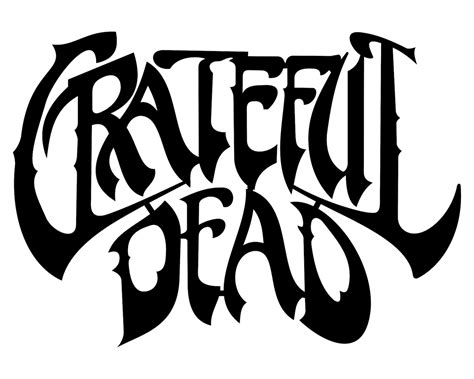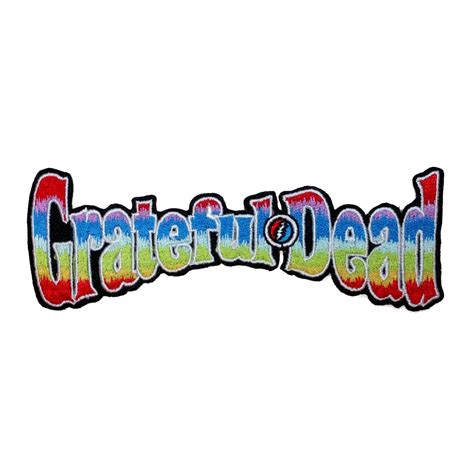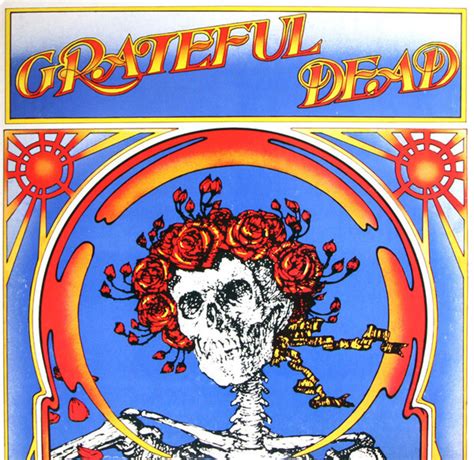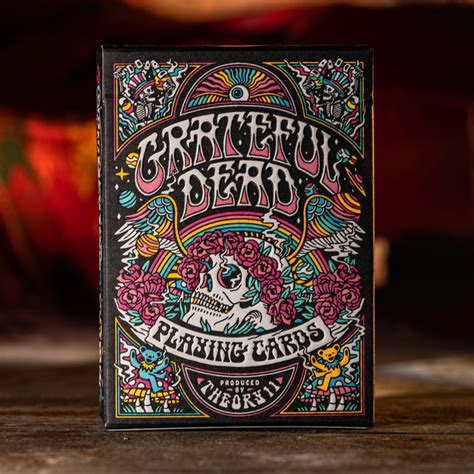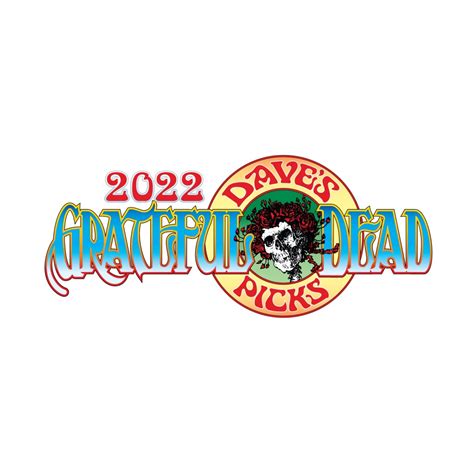
The Grateful Dead, an iconic American rock band, has left an indelible mark on music history. Their unique sound, eclectic influences, and devoted fan base have made them a cultural phenomenon. One of the lesser-known but equally fascinating aspects of the Grateful Dead's legacy is the Grateful Dead Font. This distinctive typography has become synonymous with the band's visual identity, capturing the spirit of their music and the counterculture movement they embodied.
The Origins of the Grateful Dead Font
The Grateful Dead Font, often referred to as the “Steal Your Face” font, originated from the band’s iconic logo designed by artist Stanley Mouse. The logo features a skull with a lightning bolt, which has become one of the most recognizable symbols in rock music. The font used in the logo is a custom design that reflects the band’s psychedelic and rebellious ethos. The Grateful Dead Font is characterized by its bold, angular lines and a slightly distorted, hand-drawn appearance, which gives it a raw and authentic feel.
The Design Elements of the Grateful Dead Font
The Grateful Dead Font is more than just a typographic choice; it is a visual representation of the band’s philosophy and aesthetic. The font’s design elements include:
- Bold and Angular Lines: The font features thick, bold lines that create a strong visual impact. The angular shapes add a sense of dynamism and energy, reflecting the band’s high-energy performances.
- Hand-Drawn Appearance: The slightly distorted, hand-drawn look of the font gives it a personal and authentic touch. This element aligns with the band’s DIY ethos and their connection to the counterculture movement.
- Psychedelic Influence: The font’s design is heavily influenced by the psychedelic art of the 1960s and 1970s. The use of bold colors, intricate patterns, and distorted shapes creates a visual experience that mirrors the band’s music.
The Impact of the Grateful Dead Font on Popular Culture
The Grateful Dead Font has had a significant impact on popular culture, extending far beyond the band’s music. The font has been used in various contexts, from album covers and merchandise to tattoos and street art. Its distinctive design has made it a symbol of rebellion, creativity, and individuality. The Grateful Dead Font has inspired countless artists and designers, who have incorporated its elements into their own work.
Using the Grateful Dead Font in Design Projects
- Research and Understand: Familiarize yourself with the history and design elements of the Grateful Dead Font. This will help you create a design that respects the original while adding your own unique touch.
- Create a Custom Design: Instead of directly using the Grateful Dead Font, consider creating a custom design that captures the same spirit. This can be done by incorporating similar design elements, such as bold lines, angular shapes, and a hand-drawn appearance.
📝 Note: Always respect copyright laws and seek permission when using trademarked designs. Creating a custom design that captures the spirit of the Grateful Dead Font is a legal and creative way to incorporate its elements into your projects.
Examples of the Grateful Dead Font in Use
The Grateful Dead Font has been used in a variety of contexts, showcasing its versatility and enduring appeal. Here are some examples of how the font has been used:
| Context | Description |
|---|---|
| Album Covers | The font has been prominently featured on many of the band's album covers, including "Steal Your Face" and "Europe '72." |
| Merchandise | The font is often used on t-shirts, posters, and other merchandise, making it a popular choice for fans and collectors. |
| Tattoos | Many fans have chosen to get tattoos featuring the Grateful Dead Font, showcasing their devotion to the band and its iconic symbolism. |
| Street Art | The font has inspired numerous street artists, who have incorporated its elements into their murals and graffiti. |
The Legacy of the Grateful Dead Font
The Grateful Dead Font continues to be a powerful symbol of the band’s legacy and the counterculture movement they represented. Its distinctive design and enduring appeal have made it a timeless icon in the world of typography and design. The font’s ability to capture the spirit of the Grateful Dead’s music and philosophy ensures that it will remain relevant for generations to come.